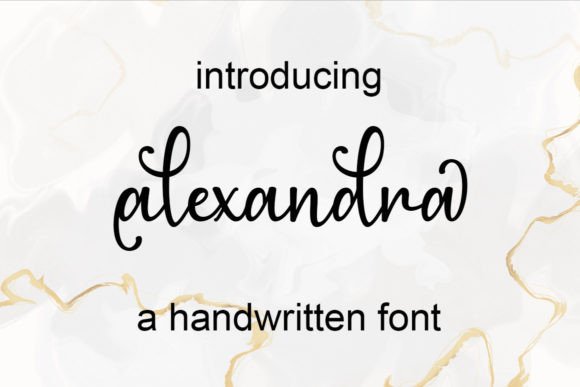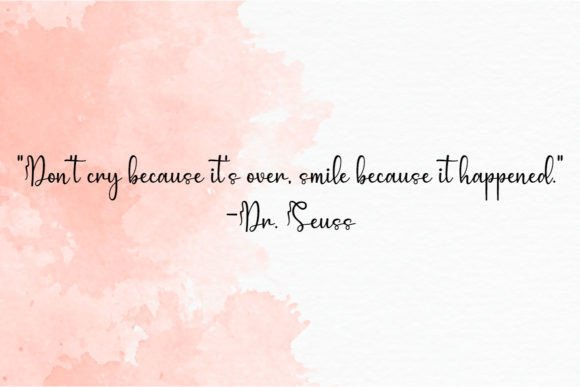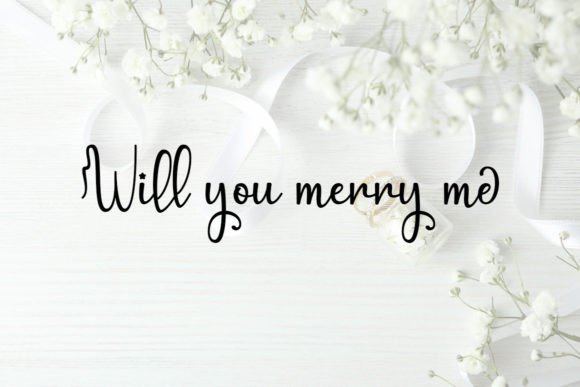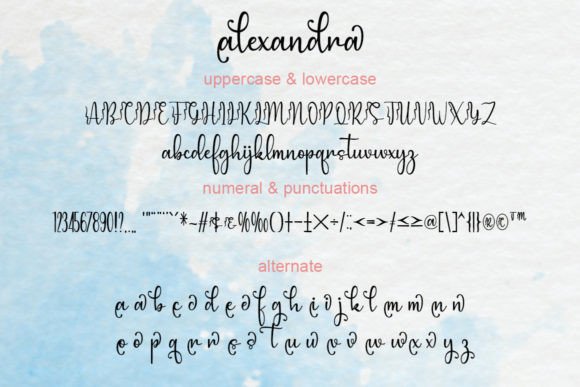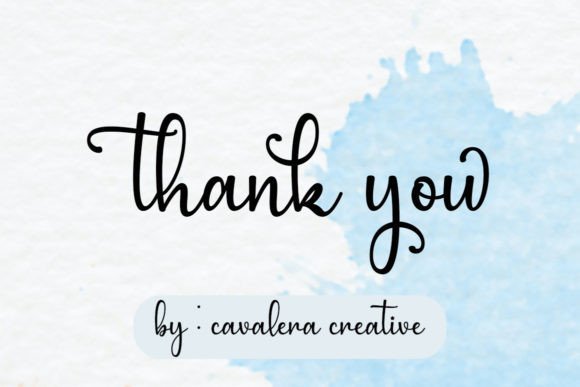
Alexandra Font
About Alexandra Font
Alexandra is a captivating handwritten font that exudes enchantment and charm. Its versatility makes it an excellent choice for a wide range of creative applications, including logos, branding, quotes, clothing designs, tote bags, business cards, websites, and more. As you fall in love with Alexandra, you’ll discover how it can elevate your projects to the highest level. This font is PUA encoded, providing easy access to all of its glyphs and swashes for added creative flexibility.
In the world of branding and logo design, Alexandra introduces a unique and enchanting script that can effectively represent your brand identity. Whether used for logos, promotional materials, or corporate identity, this font adds an enchanting and memorable element to your brand.
For quotes and inspirational messages, Alexandra’s handwritten charm adds depth and authenticity to your words. It transforms ordinary text into visually striking and engaging content that resonates with your audience.
Clothing designs benefit from Alexandra’s enchanting style, allowing you to create apparel with a touch of magic and individuality. Whether you’re designing T-shirts, hoodies, or other clothing items, this font adds a distinctive flair.
Tote bags become stylish fashion statements with Alexandra’s captivating script. Your bag designs can convey a sense of enchantment and creativity, making them both functional and fashionable.
Business cards designed with Alexandra exude a sense of creativity and charm, leaving a lasting impression on those you meet. This font adds a touch of enchantment to your professional materials.
Websites can benefit from Alexandra’s unique script for headers, banners, and other elements. It adds a touch of magic and elegance to your online presence, enhancing user engagement and aesthetics.
In summary, Alexandra is an enchanting handwritten font that has the power to transform your designs into captivating and memorable works of art. Its versatility, accessibility, and ability to convey enchantment and charm make it an invaluable asset for designers and creatives aiming to take their projects to new heights.